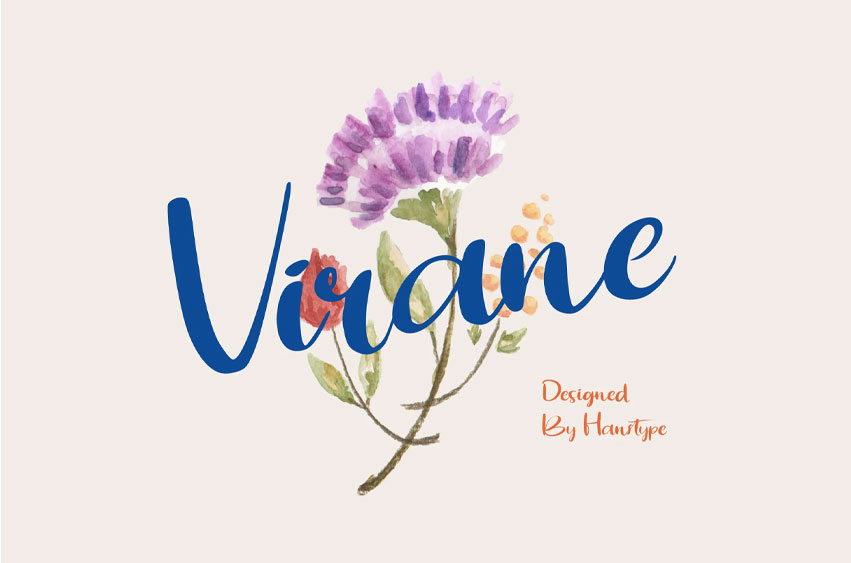
Virane Font is a sophisticated script font that combines elegance with a touch of modernity. Its smooth, flowing lines and delicate curves give it an air of refinement, making it perfect for luxury branding, invitations, and artistic projects.
The font’s graceful design and balanced letterforms allow for high readability while still conveying a sense of beauty and personality.